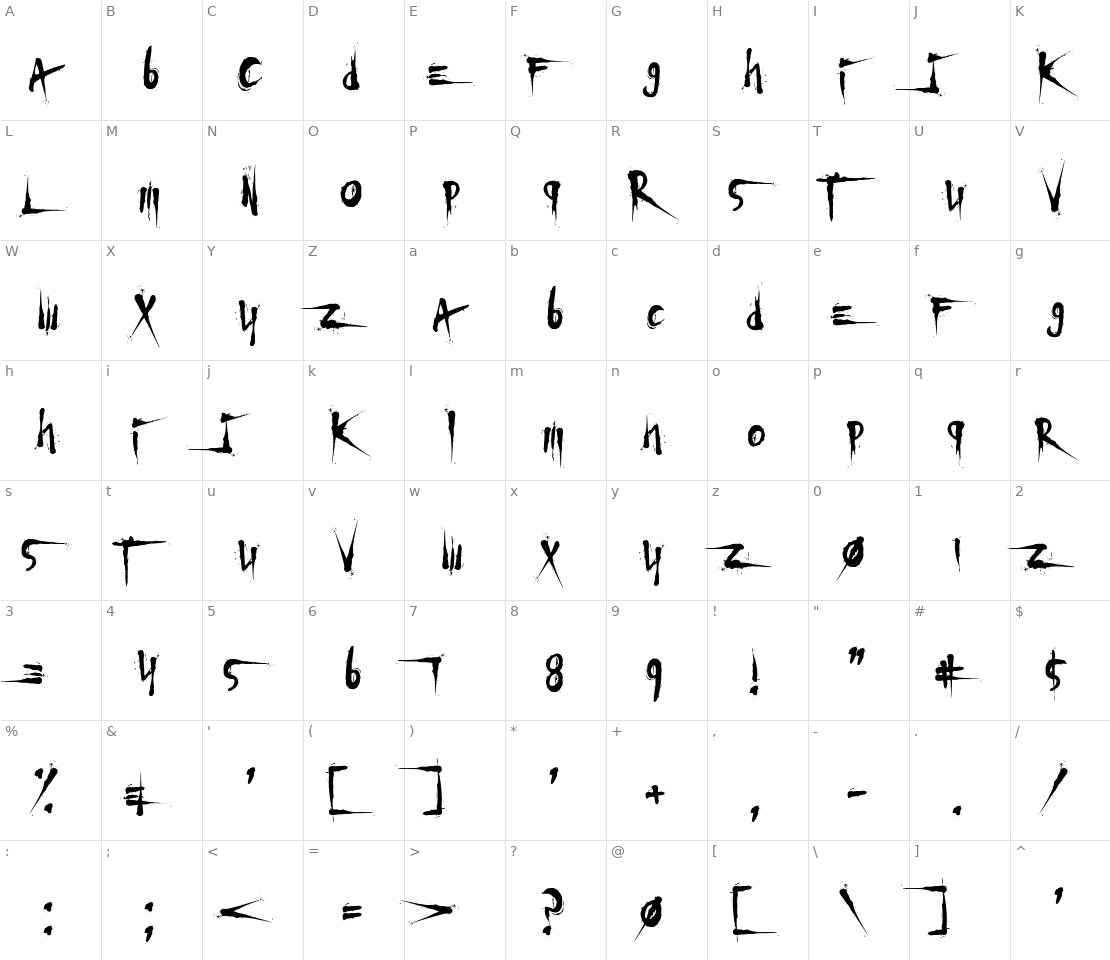
X Termination
X Termination is a grungy, splatter-heavy display face from Chequered Ink with letterforms that look like they're dripping and dissolving in real time. The aggressive, messy edges give it a raw, urban horror quality that works for band merch, haunted house flyers, and anything that needs to feel dangerous and unhinged. Keep it big and keep it loud, because this one wasn't built for subtlety.